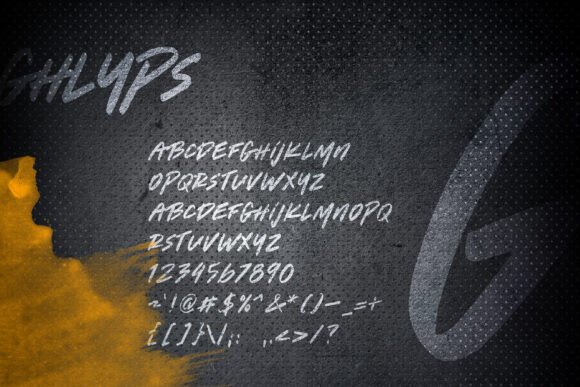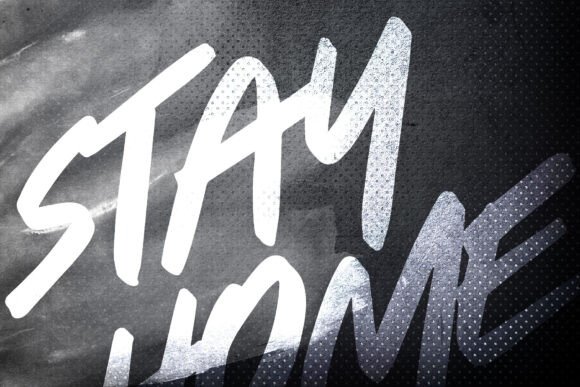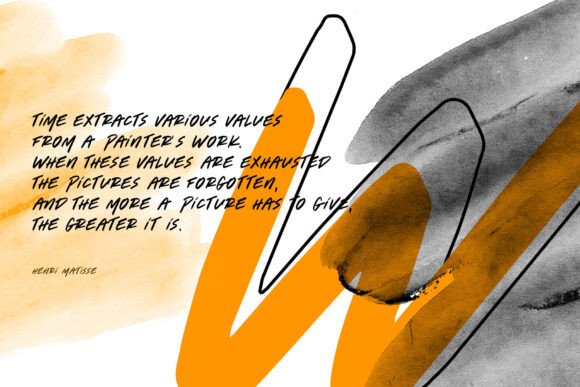
Brownmax Font: A Unique Blend of Aggressive and Clean Typography
In the world of typography, fonts play a crucial role in conveying messages, expressing emotions, and creating visual identities. For designers and crafters, finding the right font can make all the difference in their creative projects. One font that has gained attention for its distinctive style is the Brownmax Font. Inspired by manual brush writing and aggressive writing styles, Brownmax offers a neat and clean aesthetic perfect for bold and eye-catching designs.
The Inspiration Behind Brownmax
Brownmax Font draws its inspiration from the art of manual brush writing, which involves using a brush to create expressive and fluid strokes. This traditional technique, often used in calligraphy and hand-lettering, brings a human touch to the font. Combined with an aggressive writing style, Brownmax achieves a balance between raw energy and refined cleanliness. This unique blend makes it an excellent choice for projects requiring a bold statement.
Characteristics of Brownmax Font
Brownmax Font boasts several characteristics that make it stand out:
- Bold and Clean Style: The font’s bold strokes and clean lines ensure that your designs grab attention without appearing cluttered.
- Aggressive yet Refined: The aggressive writing style gives Brownmax an edgy feel, while its neatness keeps it looking refined and sophisticated.
- Versatility: Suitable for a variety of applications, from headlines and posters to t-shirts, CD covers, and album art.
- Expressive: The brush-inspired strokes bring an element of handcrafted authenticity to your designs.
Uses of Brownmax Font
The versatility of Brownmax Font makes it a valuable asset for various creative projects:
Headlines and Posters
For headlines and posters, Brownmax’s bold and clean style ensures your message stands out. Its aggressive yet refined look can add impact to promotional materials, making them more engaging and memorable.
T-Shirts and Apparel
Brownmax is ideal for designing t-shirts and other apparel. The font’s unique blend of styles allows for eye-catching and stylish designs that appeal to a wide audience.
CD Covers and Album Art
In the music industry, visual aesthetics are crucial. Brownmax Font can add a bold and professional look to CD covers and album art, reflecting the music’s style and energy.
Brownmax Font is a unique and versatile typeface that combines the expressiveness of manual brush writing with an aggressive yet clean style. Its bold and refined aesthetic makes it suitable for a wide range of creative projects, from headlines and posters to apparel and music visuals. By incorporating Brownmax into your designs, you can add a distinctive touch that sets your work apart. Whether you’re a designer or a crafter, Brownmax Font is an excellent choice for those looking to make a bold statement.